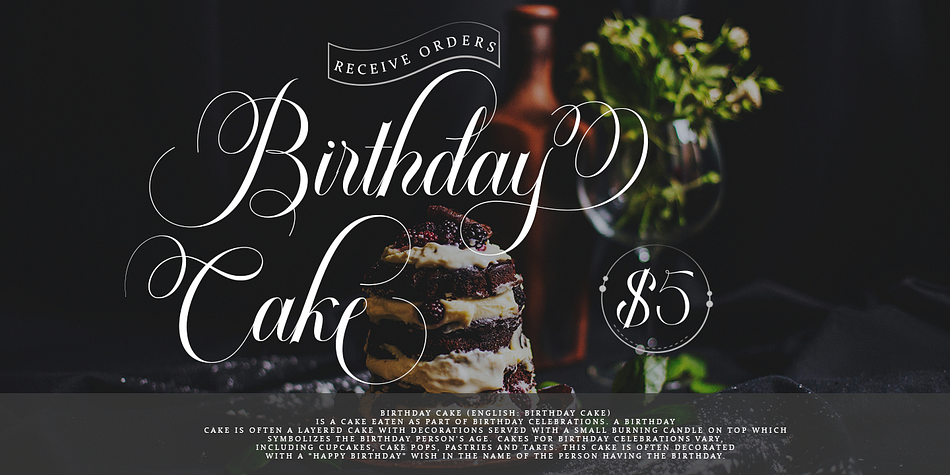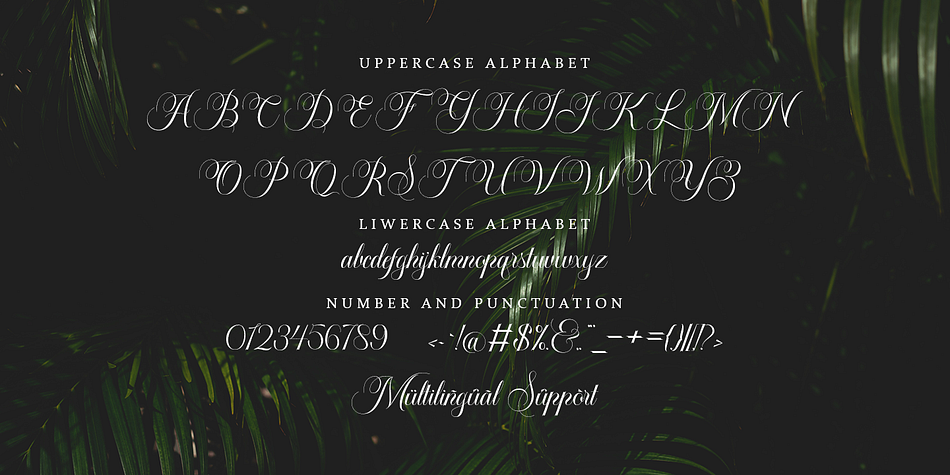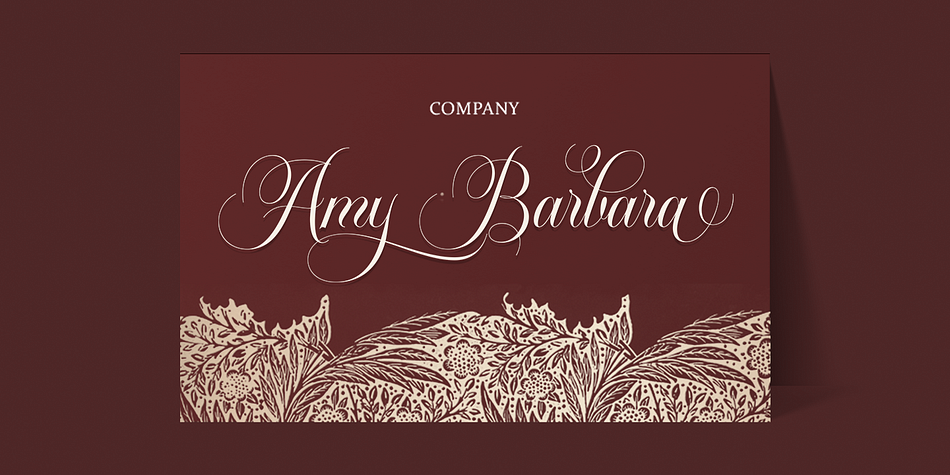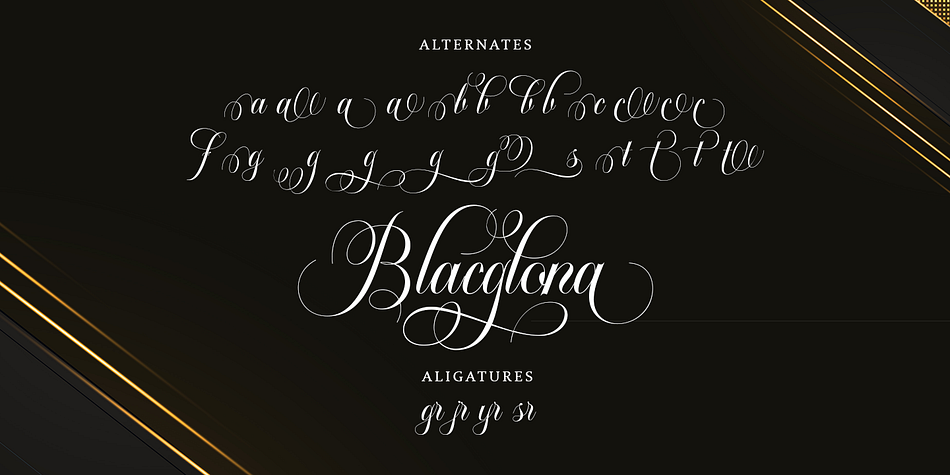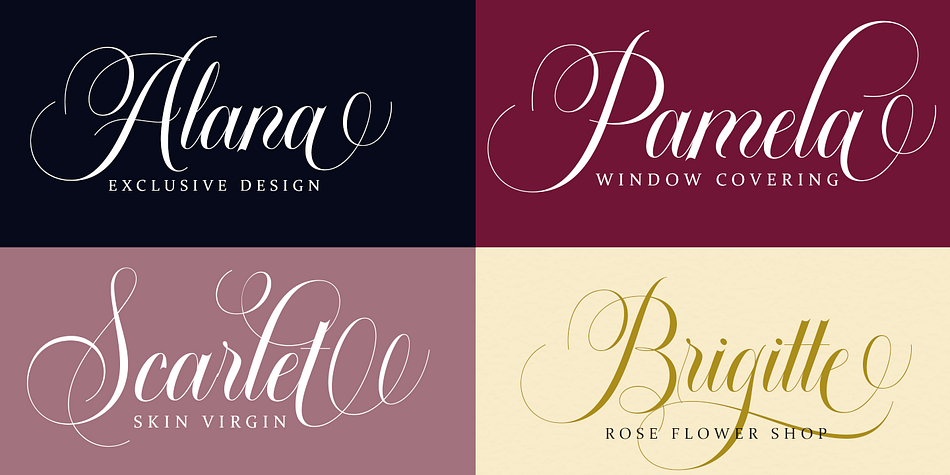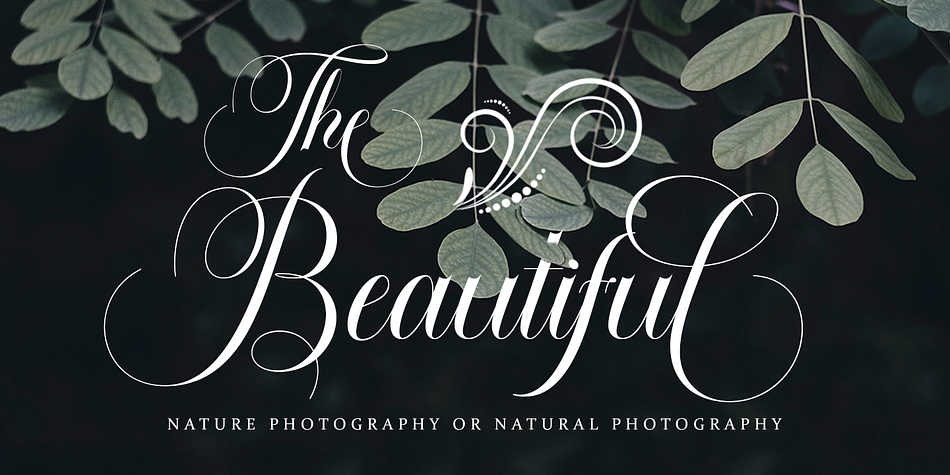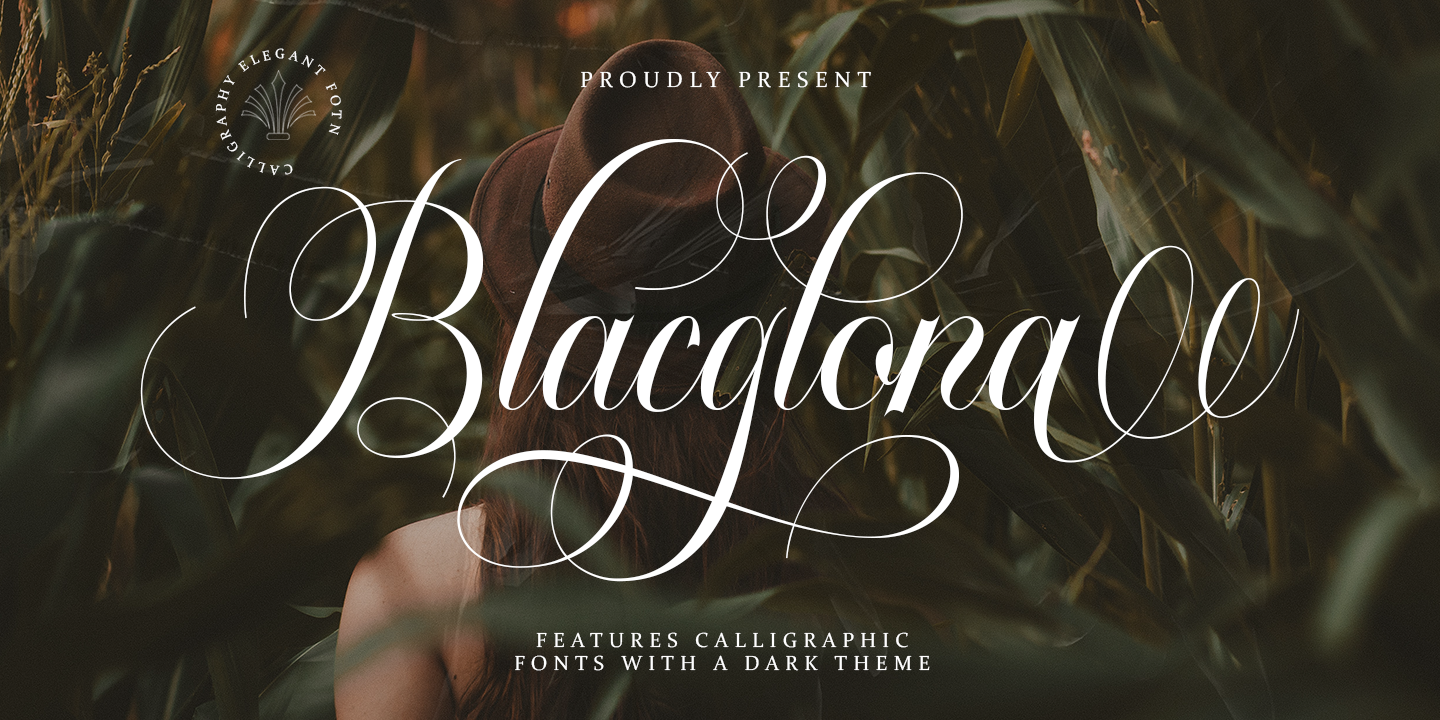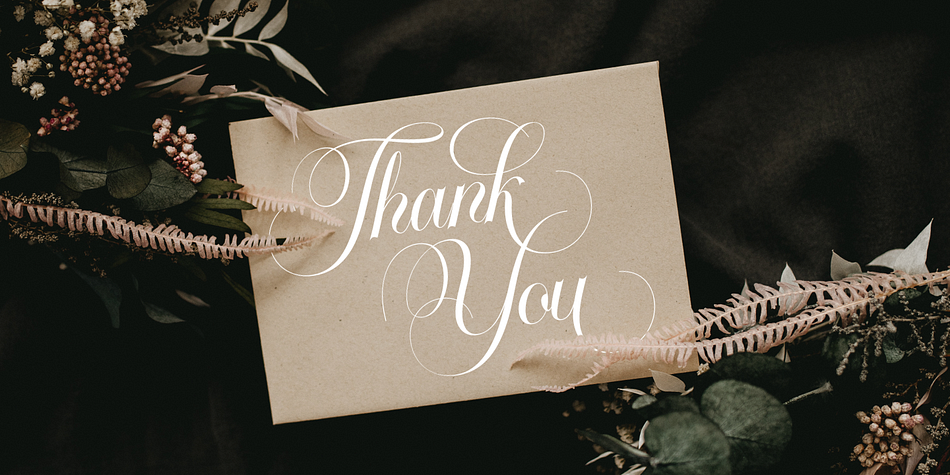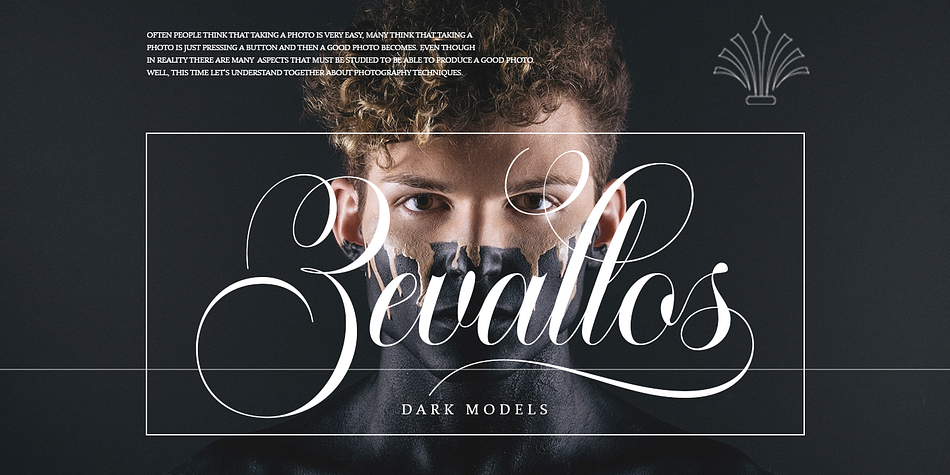
Blacglona
Blacglona is a modern calligraphy font family published by Pista Mova.
Blacglona is a calligraphic font with a classic style and a touch of elegance, inspired by Italian women’s handwriting and ancient manuscripts. Carefully designed to work harmoniously together they are perfect for wedding favors, book covers, greeting cards, logos, branding, business cards and certificates, in fact for any design work that calls for classic, formal or extravagant.
multilingual support and custom ligatures